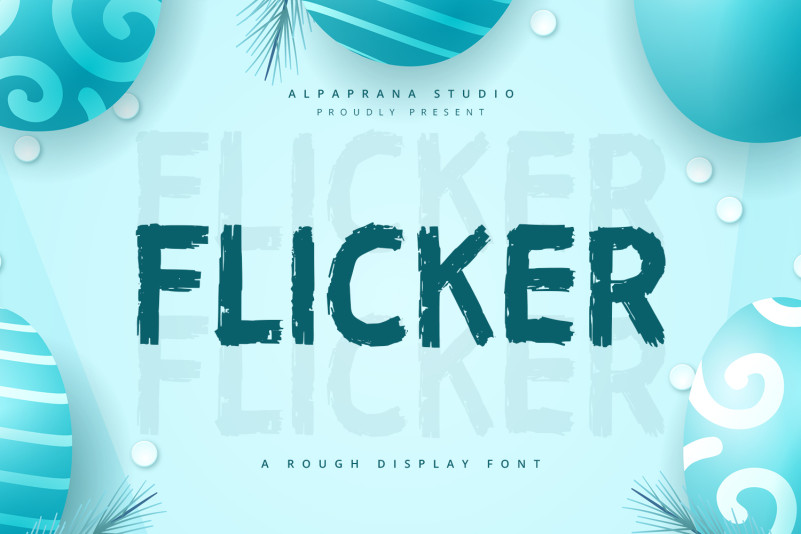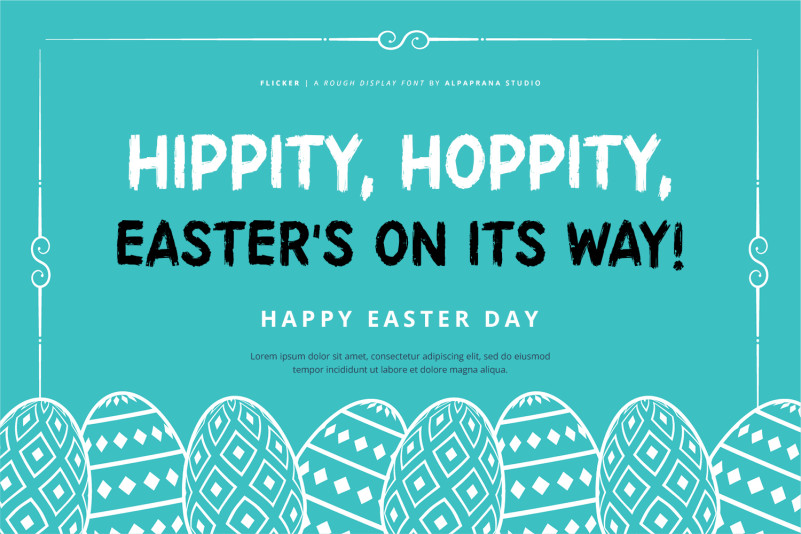
Flicker Typeface
Flicker Display Font is a rough display font with cute and playful feels. It will be perfectly used for Branding, Logo Design, Lettering, Logotype, Clothing, Poster, magazine, packaging, posters, shopping bags, t-shirts, book covers, photography, special events and other design project.